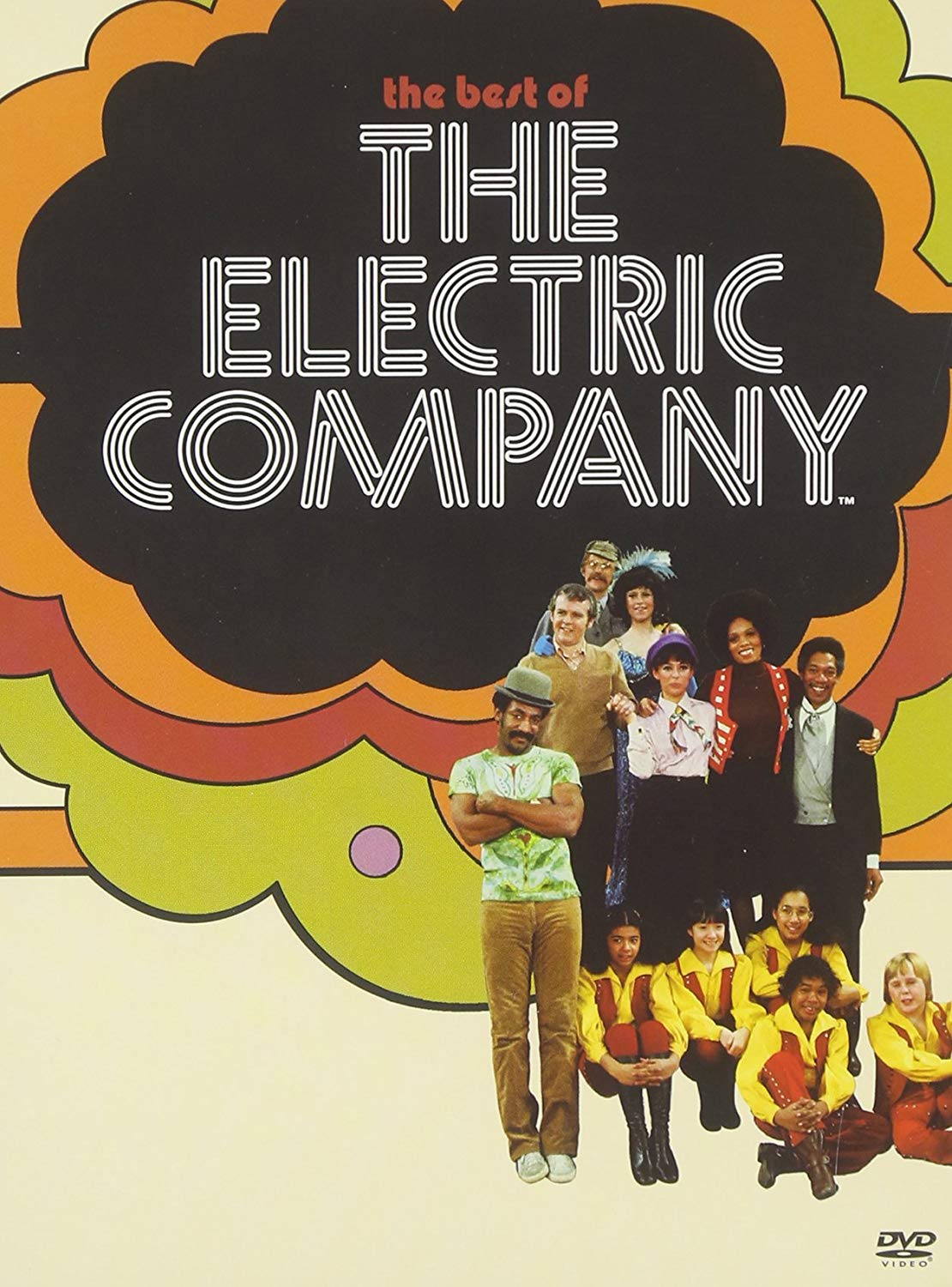
The Electric Company Font
ComedyThe Electric Company is an American educational children's television series that teaches reading through the use of humor and musical sketches. It originally aired on PBS from 1971 to 1977.
The logo of the TV series features the ITC Neon font, created by Tom Carnase & Ronne Bonder and released by ITC in 1970. Unfortunately, a digital version of the font is not available. However, you can try using similar fonts like Eclectic Crumpany, Neptune, or Multistrokes. The latter two fonts are available for free download in the Fonts Used Section.